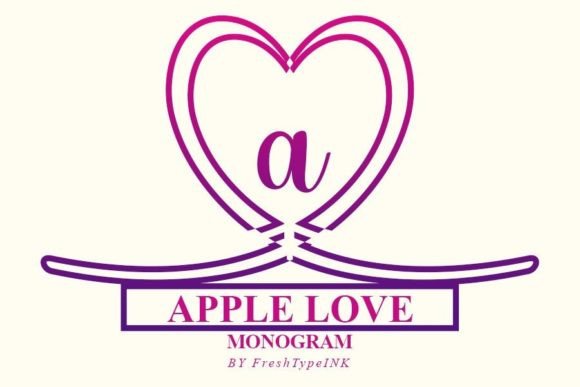
The Apple Love Monogram Font: A Designer’s Dream Come True
I’ll never forget the time I was working on a wedding invitation project, and my client asked for a custom monogram font that was both elegant and modern. I scoured the internet, but nothing seemed to fit the bill. That was until I stumbled upon the Apple Love Monogram Font. It was love at first sight! 💕
This beautiful font has been a game-changer for my design projects, and I’m excited to share my experience with you. In this article, we’ll dive into the features, benefits, and uses of the Apple Love Monogram Font, as well as provide a comprehensive guide on how to use it.
- ✨ Beautifully crafted monograms: The Apple Love Monogram Font features stunning monograms that are perfect for logos, branding, and wedding designs.
- ✅ PUA encoded for easy access: The font is PUA encoded, making it easy to access all the amazing glyphs and ligatures.
- 🌈 Classy and modern design: The font’s design is both classy and modern, making it perfect for a variety of design projects.
While the Apple Love Monogram Font is amazing, there are a few quirks to be aware of:
- ⚠️ Glyph access can be tricky: Some users may find it challenging to access the glyphs and ligatures, but this can be overcome with a little practice.
- 🤔 Compatibility issues with some software: As with any font, there may be compatibility issues with certain software or platforms.
The Designer Inspiration Behind Apple Love Monogram Font
The Apple Love Monogram Font was designed with love and care by a talented font designer. The designer’s inspiration came from the beauty of monograms and the elegance of modern typography. The result is a font that is both classy and modern, perfect for a variety of design projects.
Q: What is the Apple Love Monogram Font?
A: The Apple Love Monogram Font is a beautifully crafted monogram font featuring elegant and modern designs.
Q: Is the Apple Love Monogram Font PUA encoded?
A: Yes, the Apple Love Monogram Font is PUA encoded, making it easy to access all the amazing glyphs and ligatures.